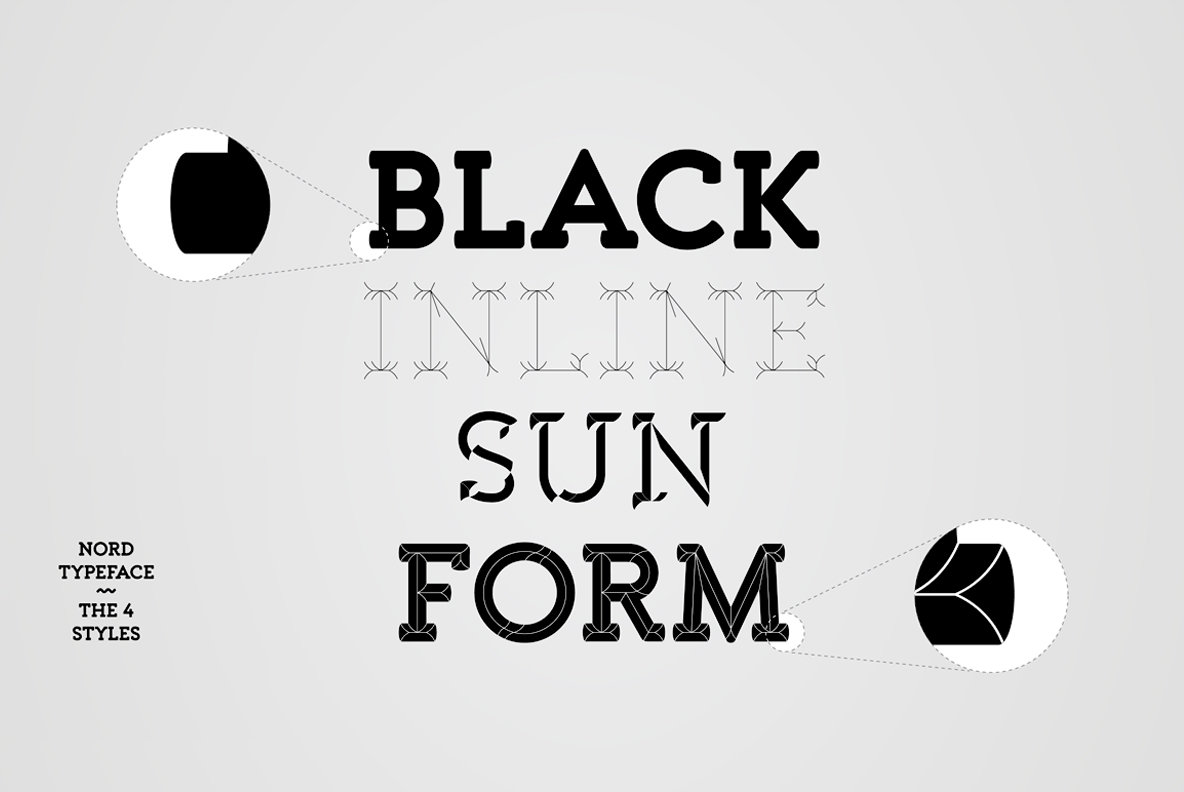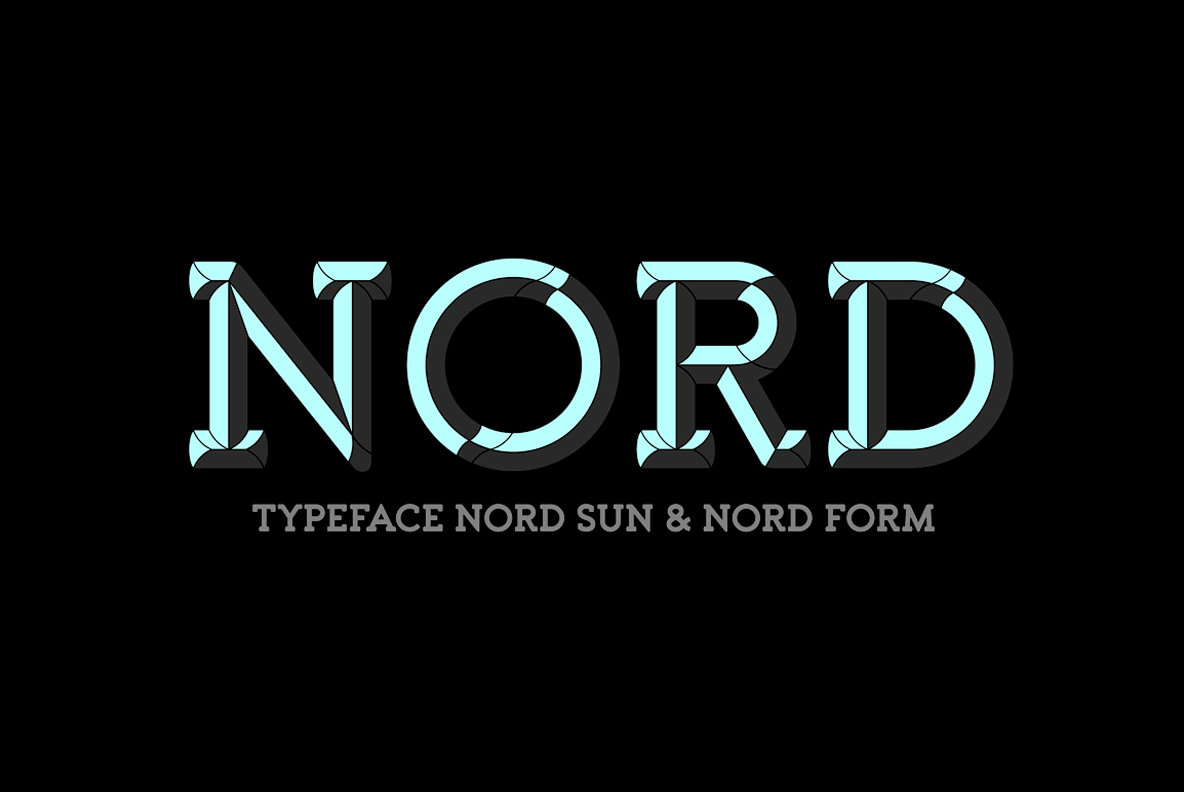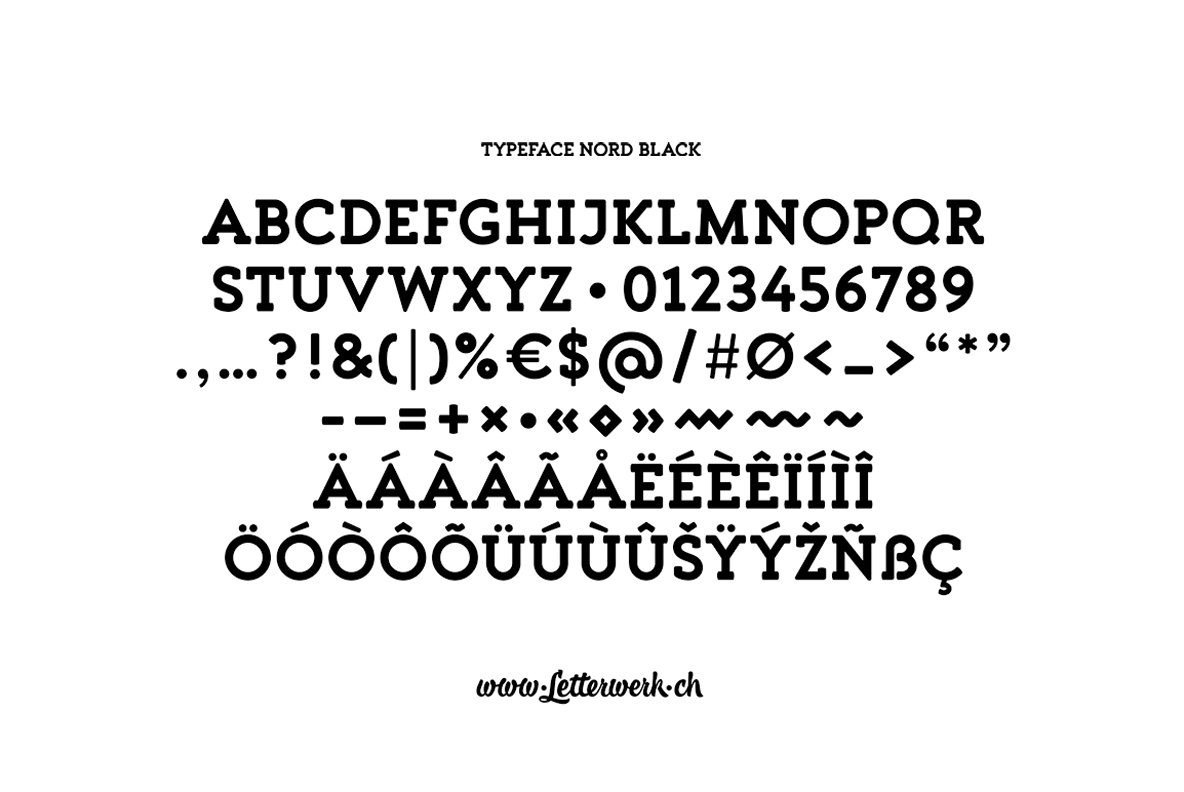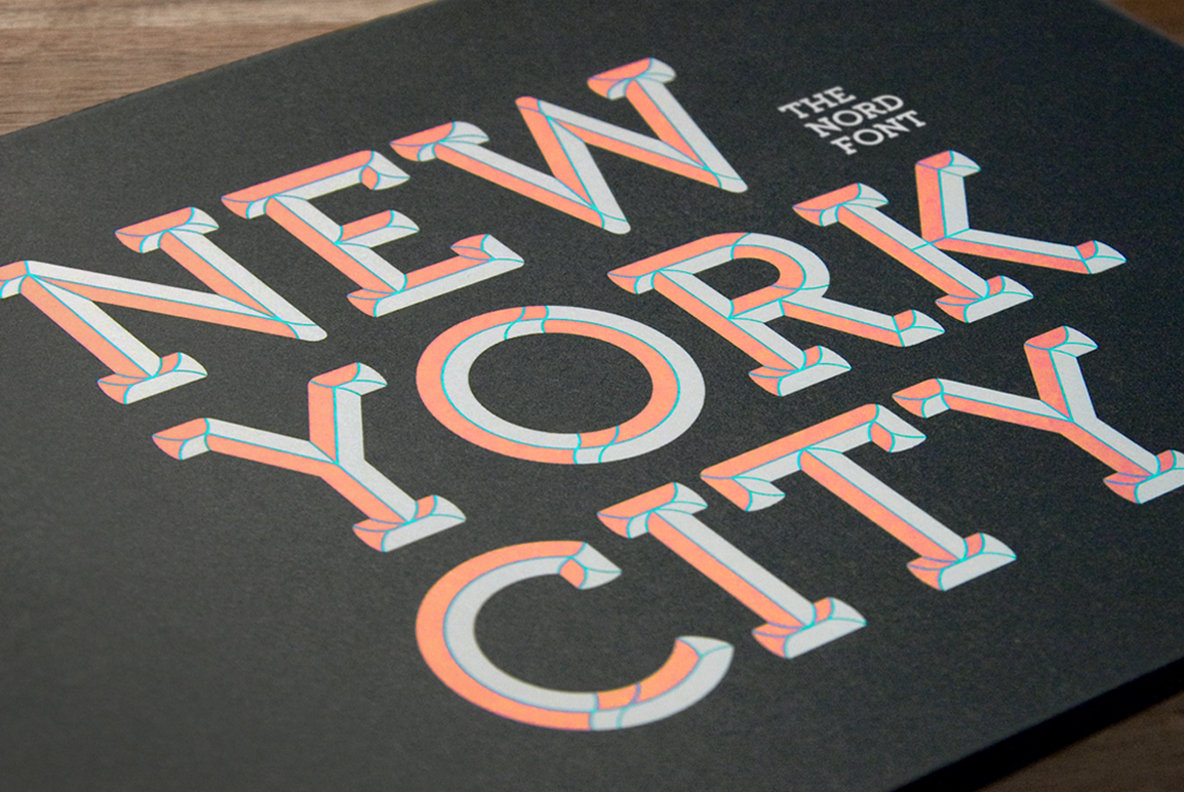
Nord Font
Nord Black
Nord Form
Nord Inline
Nord Sun
Nord is a capital letter font made for display use. The 4 styles can either stand alone or be used for effects by adding different colors to each stackable style. Available Cuts: - Nord-Black - Nord-Inline - Nord-Sun- Nord-Form